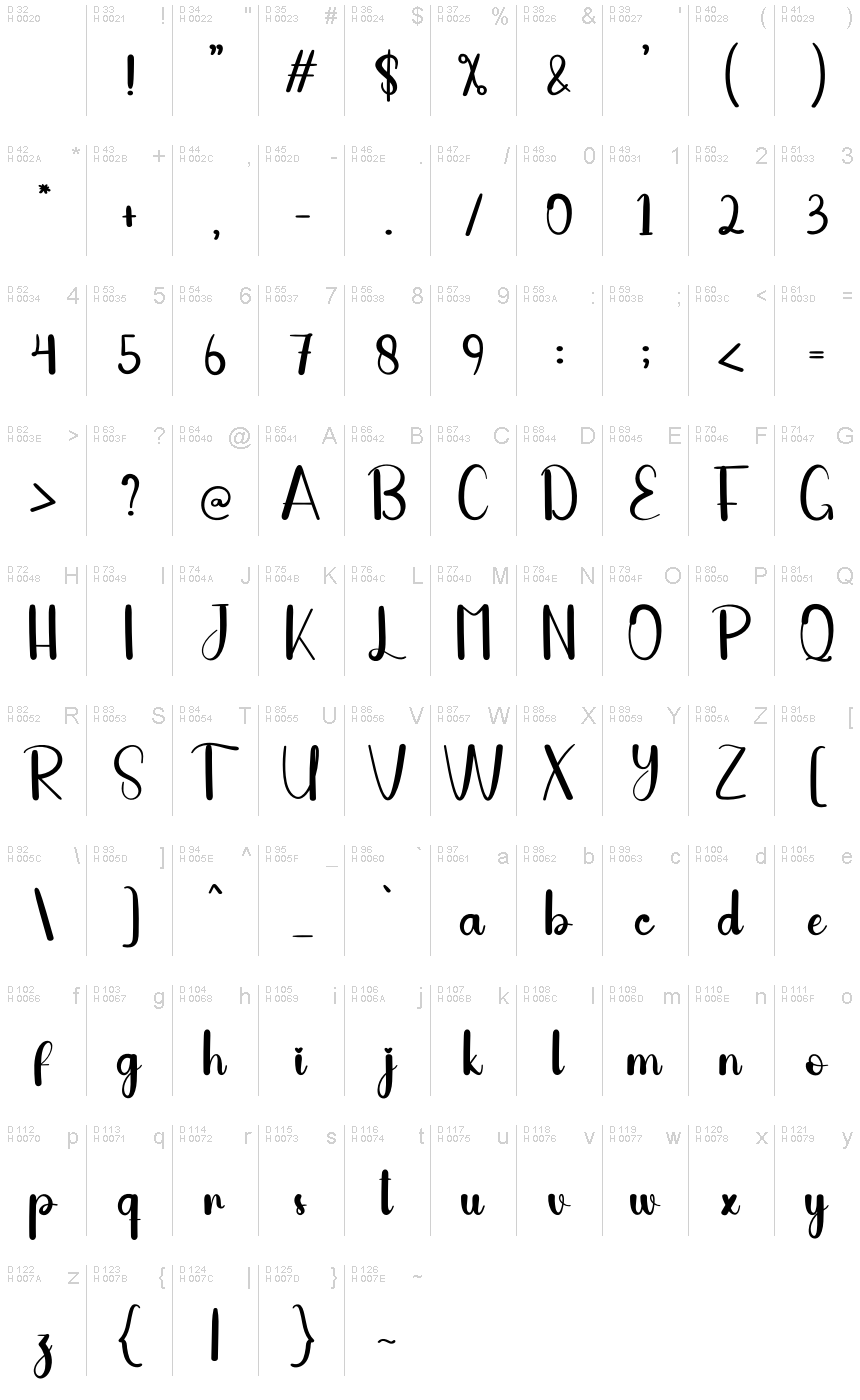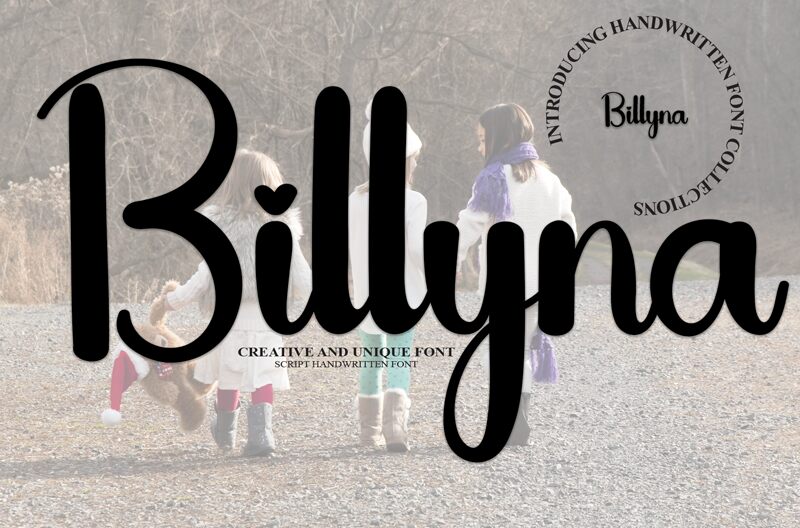
Billyna
Billyna is a smooth, brush-inspired font that exudes a sense of effortless elegance. Crafted by designer Andi Moz, this typeface boasts a harmonious flow and a touch of whimsy, making it an ideal choice for branding, editorial design, and creative projects that seek to convey a refined, artisanal aesthetic.
The fluid strokes and organic curves lend Billyna a distinctive personality, while its versatility allows it to seamlessly adapt to a wide range of applications, from high-end fashion to rustic, handcrafted aesthetics.
Billyna's captivating charm and timeless appeal make it a compelling option for designers seeking to elevate their work with a touch of sophistication and style.